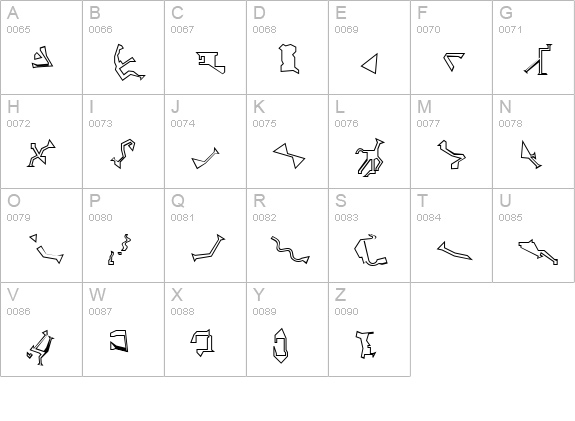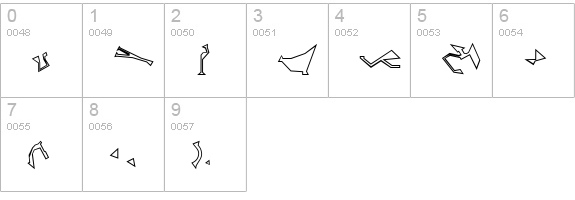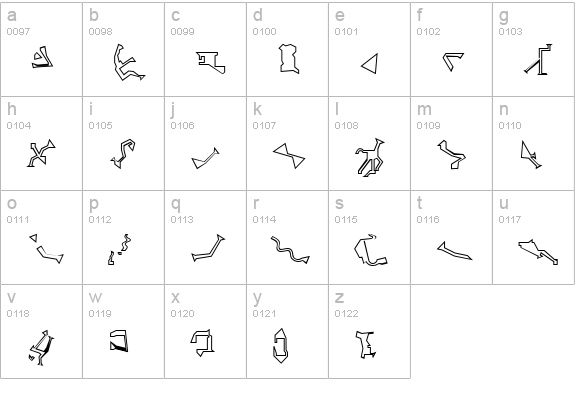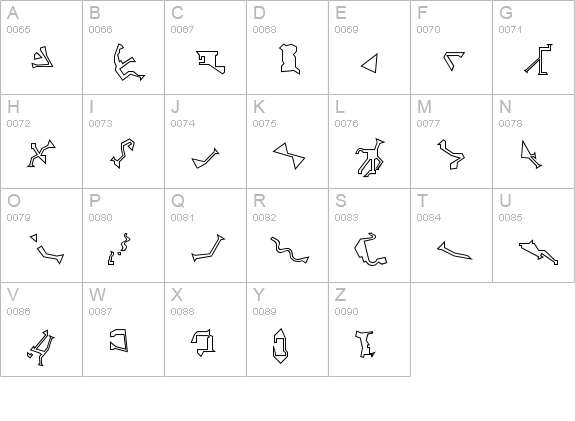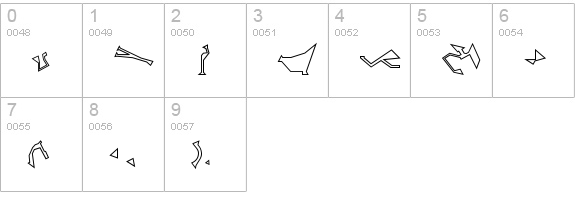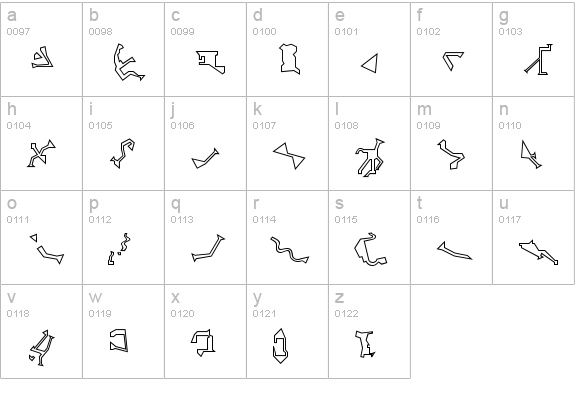
Stargate SG1 Go ald Font Details
Experience the power and mystique of the Goa'uld with the captivating Stargate SG1 Goa'uld font. This remarkable typeface draws inspiration from the iconic science fiction series, allowing you to bring a touch of intergalactic adventure to your designs. Designed with utmost precision and attention to detail, the Stargate SG1 Goa'uld font showcases the intricate symbols and glyphs associated with the formidable Goa'uld empire. Each character exudes an aura of grandeur and authority, reflecting the commanding presence of these powerful beings. With its bold and distinctive style, the Stargate SG1 Goa'uld font effortlessly captures the essence of the series, making it perfect for fans and enthusiasts alike. Whether you're working on a poster, a logo, or any other creative project, this font will transport you to the far reaches of the universe, immersing you in the thrilling world of Stargate SG1. What's even better is that the Stargate SG1 Goa'uld font is freely available to download at FontsMarket.com. Now you can effortlessly incorporate the allure of the Goa'uld into your designs without any restrictions. Whether you're a designer, a gamer, or simply a fan of the series, this font is a must-have addition to your collection. So why wait? Unleash the power of the Goa'uld and elevate your designs to new heights with the Stargate SG1 Goa'uld font. Download it for free at FontsMarket.com and embark on an unforgettable journey through the stars.